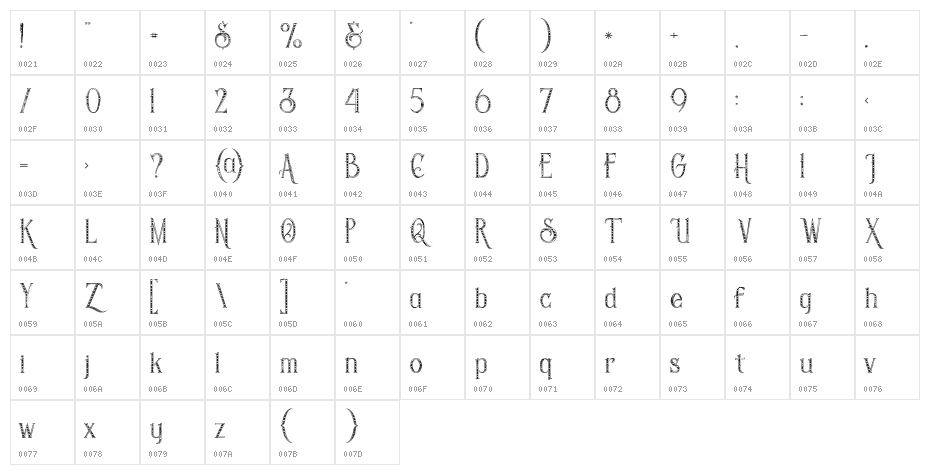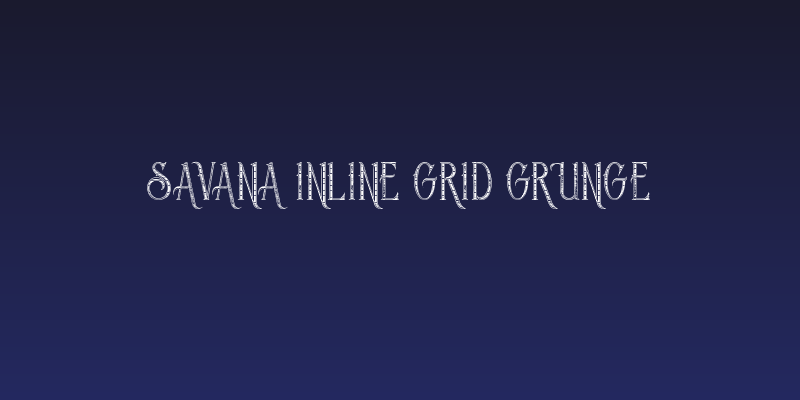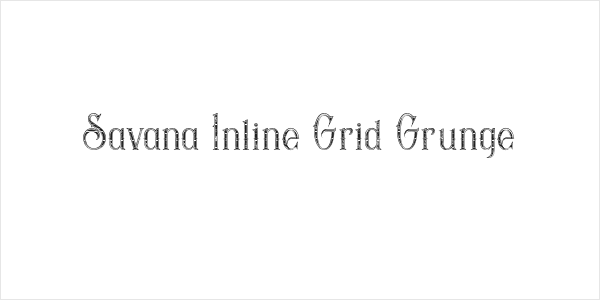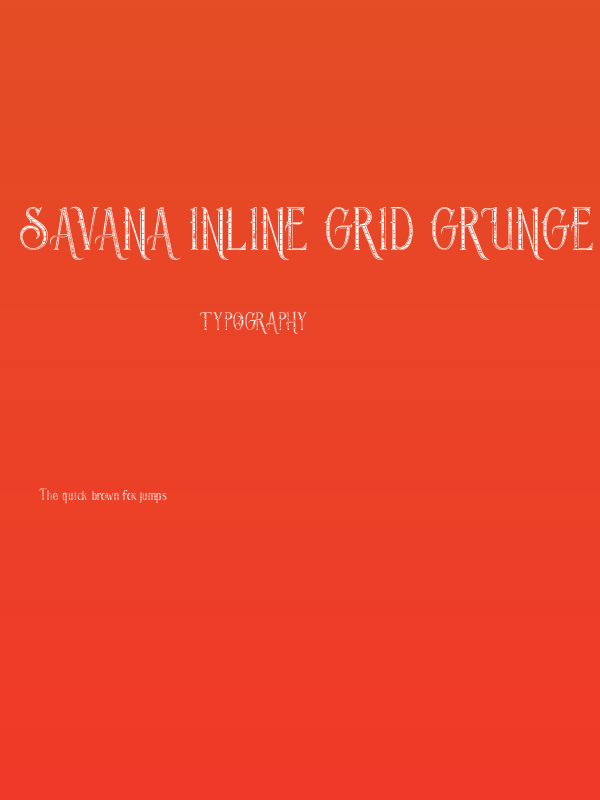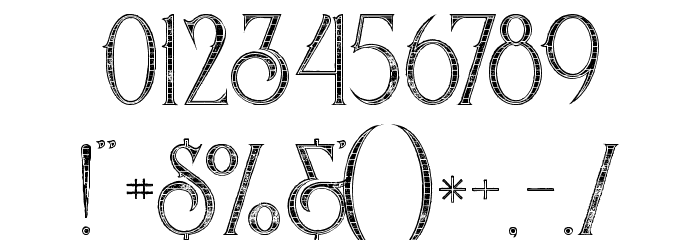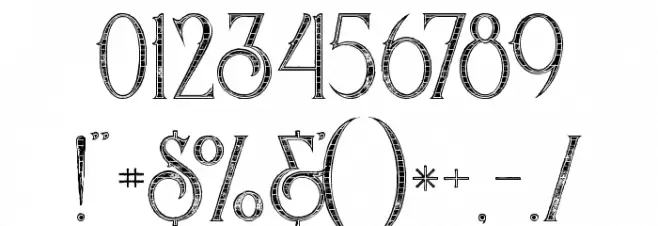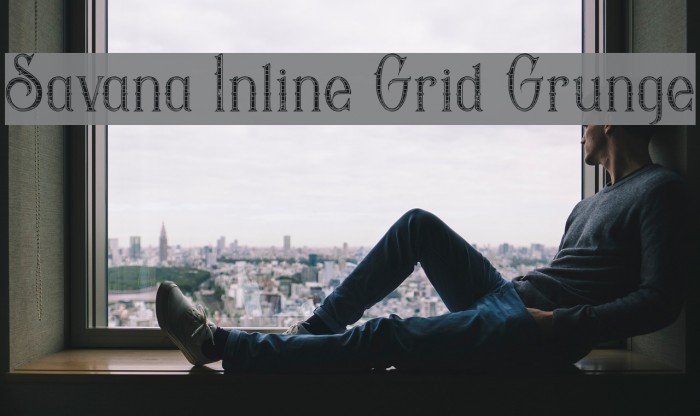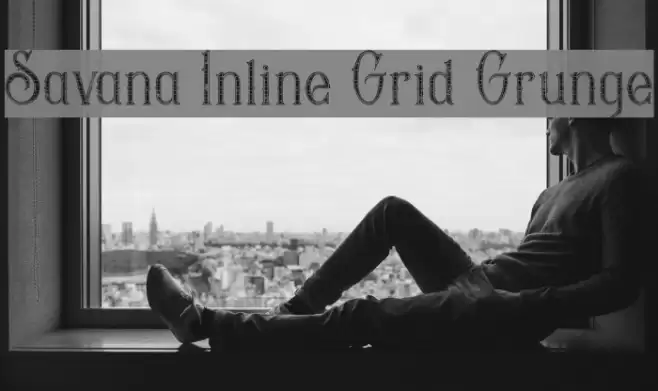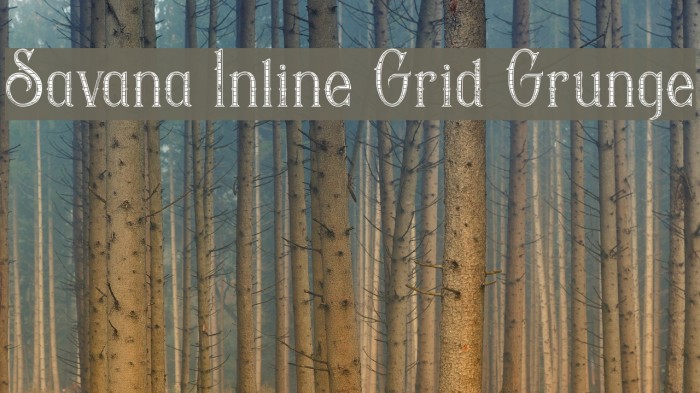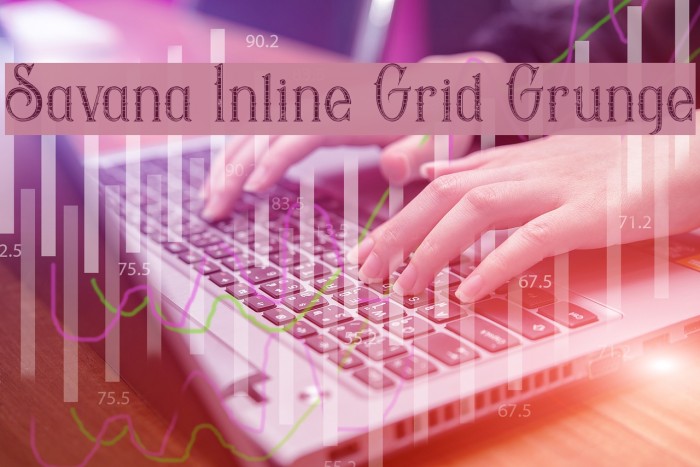
Savana Inline Grid Grunge Font
This font features a unique blend of grunge and decorative elements, characterized by its inline grid pattern within each letterform. The uppercase letters exhibit a tall and narrow structure with slight curves and sharp serifs, giving them a vintage yet edgy appearance. The lowercase letters maintain a consistent style, with a slightly more relaxed form, enhancing readability. Numbers and special characters follow the same design principles, ensuring a cohesive look across all text elements. The intricate detailing within the characters adds a layer of texture, making it suitable for eye-catching designs.
| Overall Style | Vintage, Decorative |
| Proposed Projects | Ideal for poster designs, album covers, branding projects, and any creative work that requires a bold, artistic touch. |